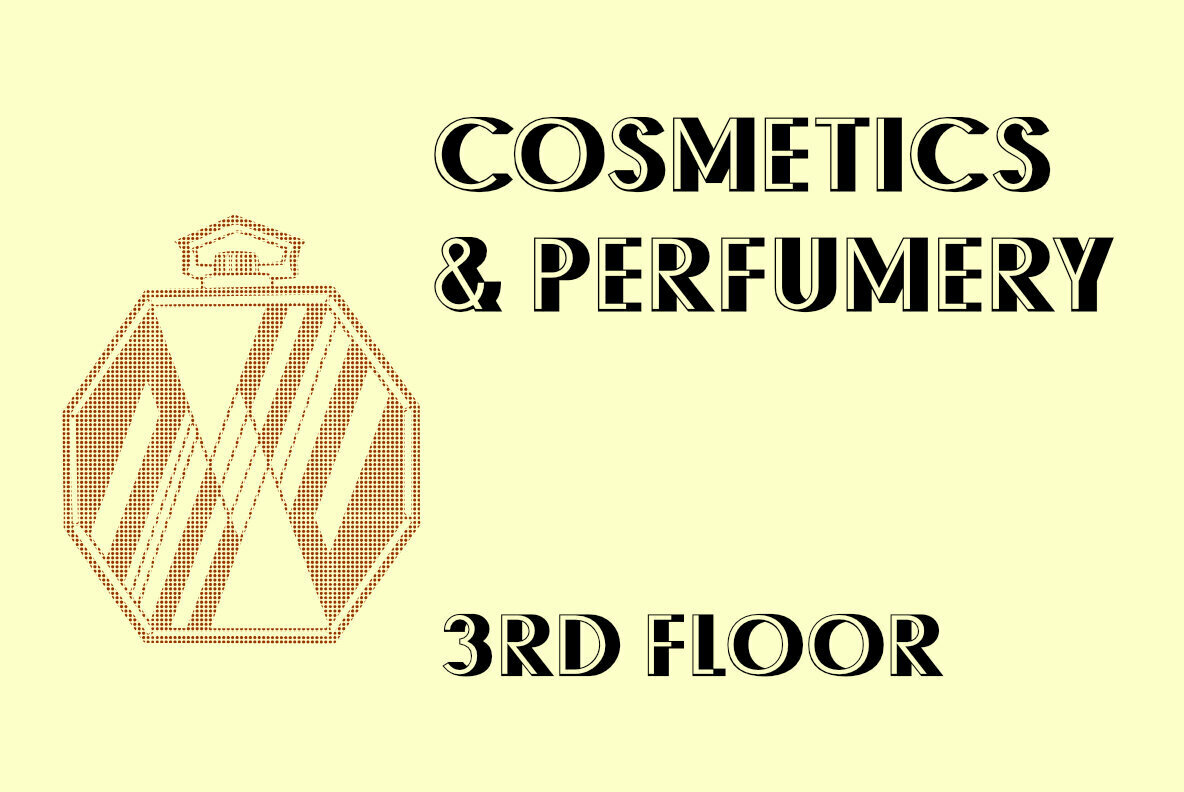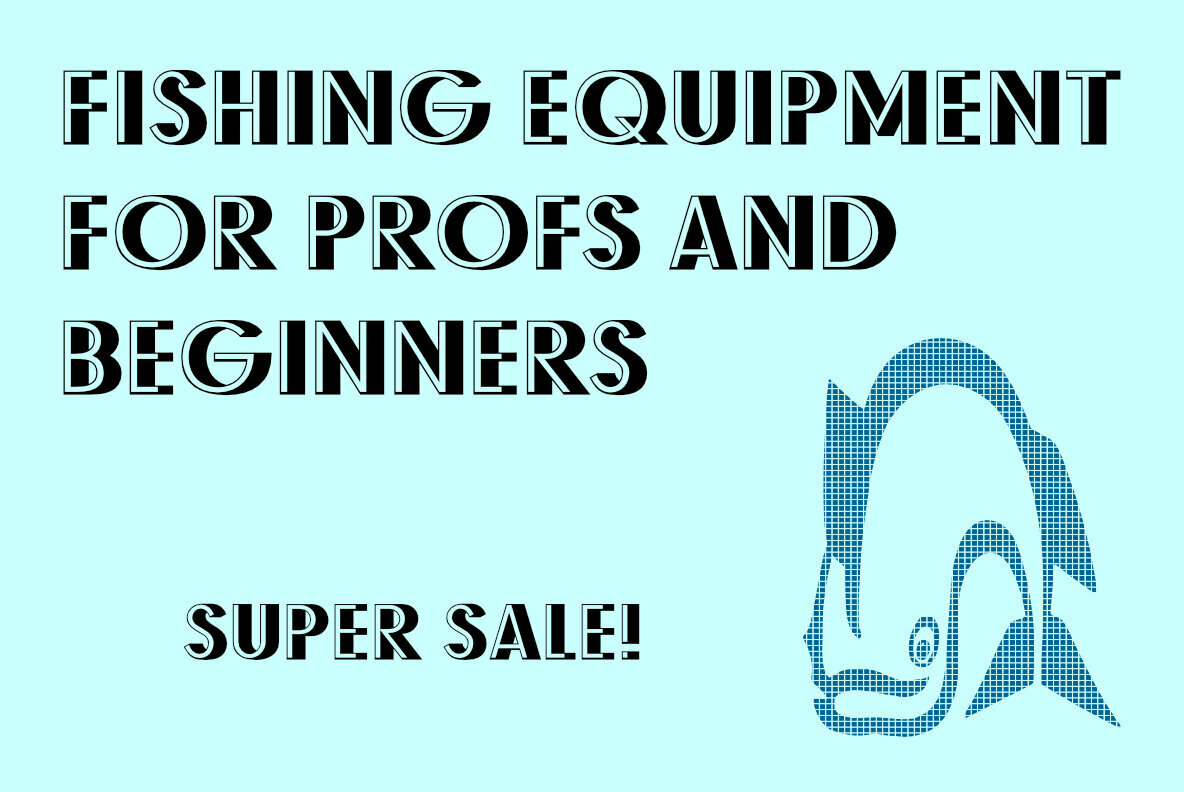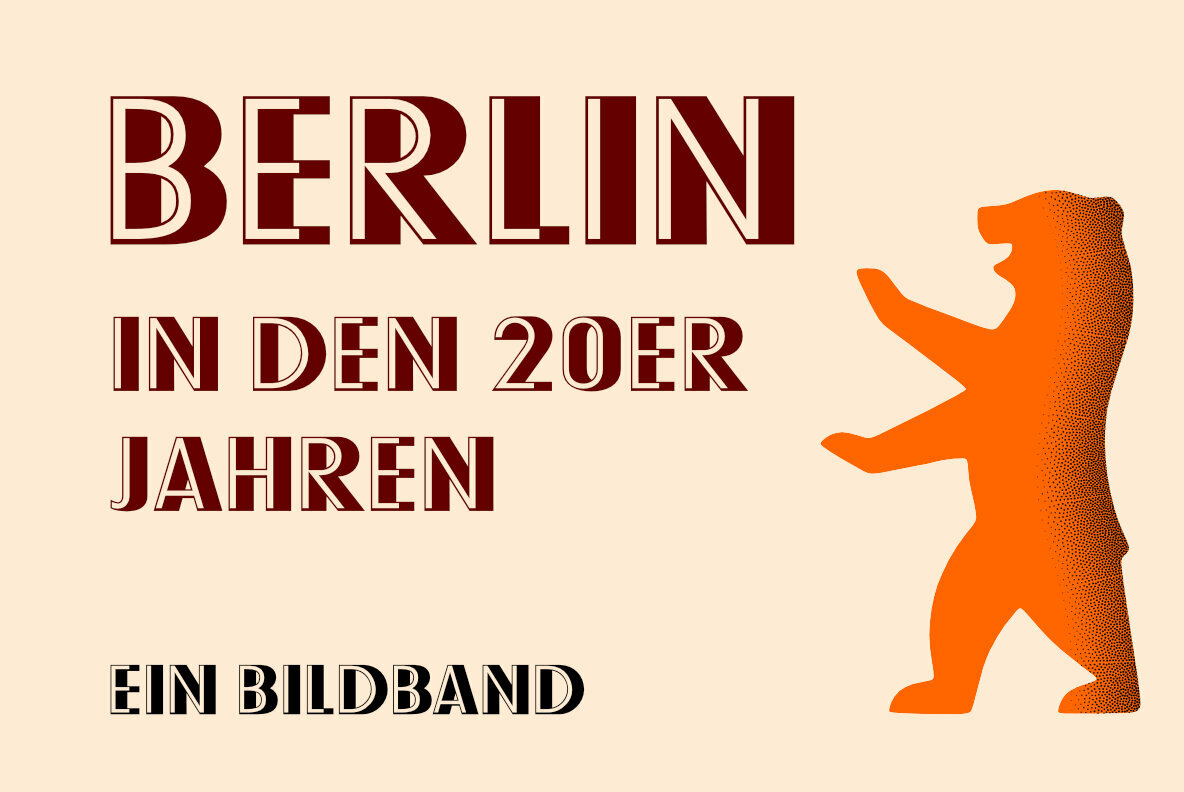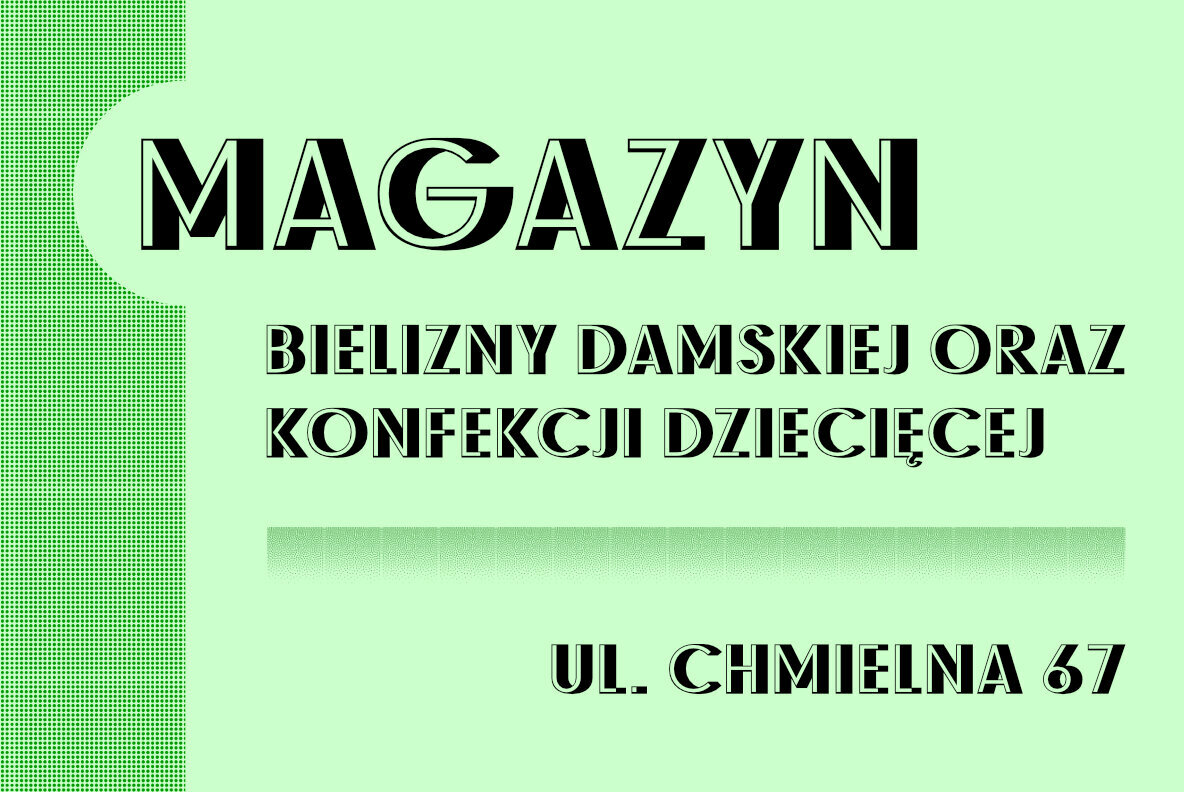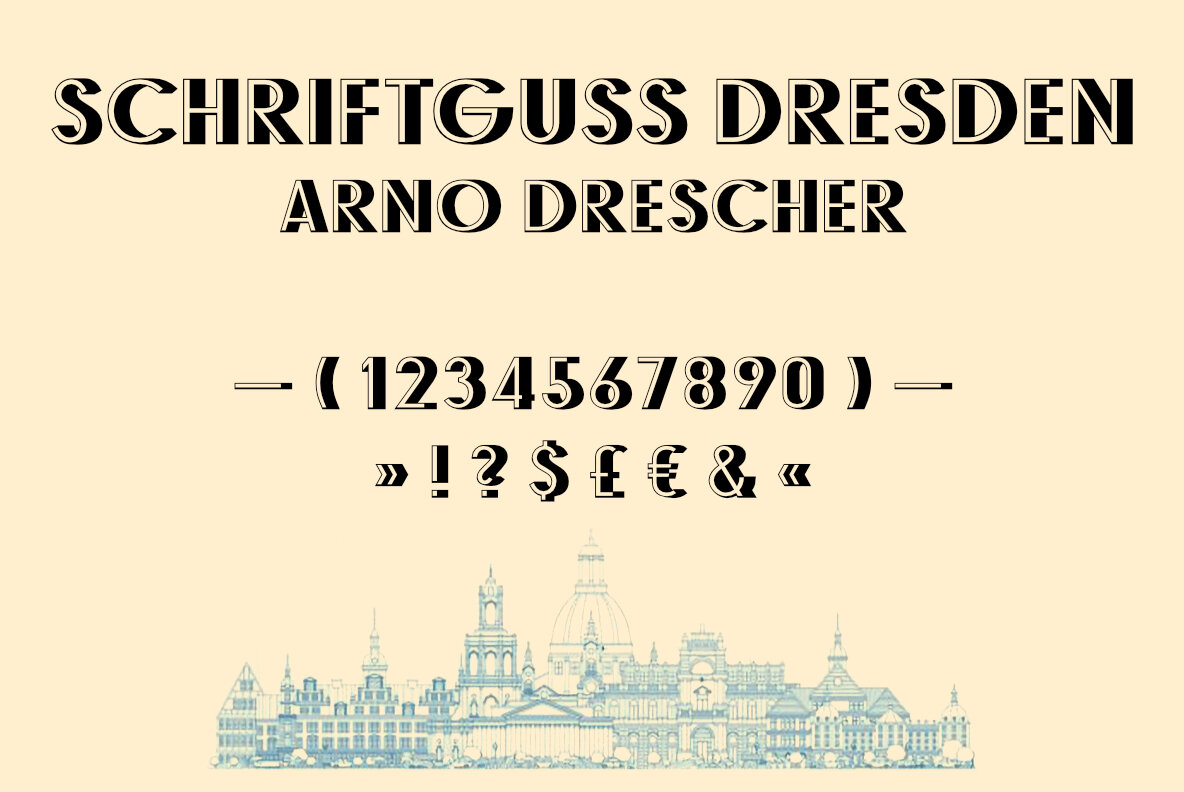
RMU Helion
In 1935 Schriftguss Dresden released Arno Drescher’s famous titling font Helion. This font was brought to life again and carefully extended with Baltic, Turkish and Central European character sets.